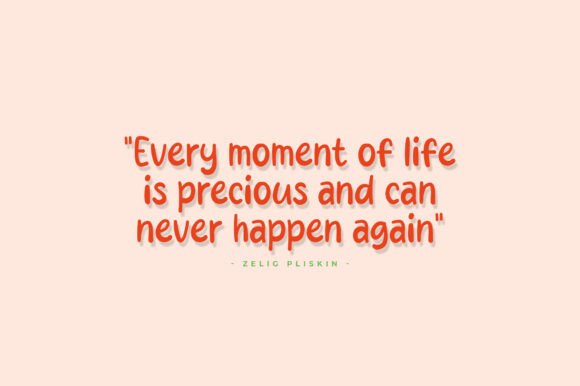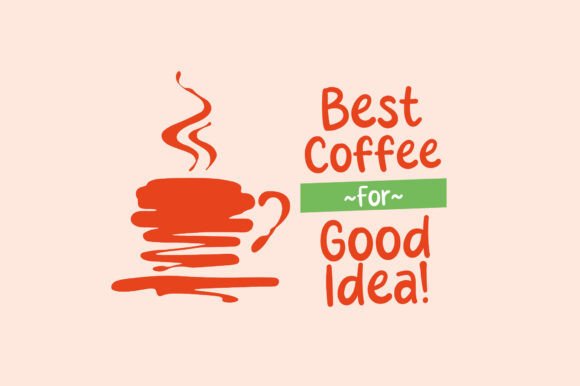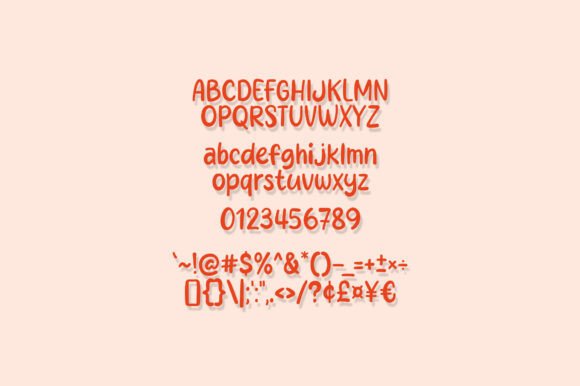
Introducing Happy Selfie Font: The Perfect Addition to Your Design Arsenal
Are you tired of using the same old fonts for your designs? Look no further! Happy Selfie Font is here to revolutionize your creative projects with its modern and cute handwritten style. This versatile font is perfect for a wide range of applications, from posters and logos to magazines, book covers, and banners. In this article, we’ll dive into the features and benefits of Happy Selfie Font, and explore how it can elevate your designs to the next level.
What is Happy Selfie Font?
Happy Selfie Font is a beautifully crafted handwritten font that exudes a sense of playfulness and charm. Its modern and cute style makes it an ideal choice for designers who want to add a personal touch to their work. The font’s unique characteristics and elegant flow make it perfect for creating eye-catching designs that stand out from the crowd.
Key Features of Happy Selfie Font
- Modern and Cute Handwritten Style: Happy Selfie Font boasts a fresh and contemporary look that’s sure to capture the attention of your audience.
- Versatile and Adaptable: This font is perfect for a wide range of projects, including posters, logos, magazines, book covers, banners, and more.
- Elegant Flow and Unique Characteristics: The font’s smooth flow and distinctive features make it easy to read and visually appealing.
Benefits of Using Happy Selfie Font
So, why choose Happy Selfie Font for your design projects? Here are just a few benefits you can expect:
- Stand Out from the Crowd: With Happy Selfie Font, you can create designs that are truly unique and attention-grabbing.
- Easy to Use and Match: This font is incredibly versatile and can be paired with a wide range of other fonts and design elements.
- Perfect for Creative Projects: Whether you’re a designer, crafter, or DIY enthusiast, Happy Selfie Font is the perfect addition to your creative arsenal.
How to Use Happy Selfie Font
- Create Eye-Catching Posters: Use Happy Selfie Font to create bold and colorful posters that grab attention.
- Design Unique Logos: This font is perfect for creating custom logos that reflect your brand’s personality.
- Add a Personal Touch to Your Magazines and Book Covers: Happy Selfie Font is a great choice for adding a touch of elegance and sophistication to your publications.
Tips and Tricks for Working with Happy Selfie Font
Here are a few tips and tricks to help you get the most out of Happy Selfie Font:
- Experiment with Different Colors and Textures: Don’t be afraid to try out different colors and textures to add depth and interest to your designs.
- Pair it with Other Fonts: Happy Selfie Font pairs well with a wide range of other fonts, so don’t be afraid to experiment and find the perfect combination.
- Use it in Combination with Images and Graphics: This font looks great when paired with images and graphics, so try incorporating them into your designs for added visual interest.
In conclusion, Happy Selfie Font is a versatile and charming handwritten font that’s perfect for designers and crafters looking to add a personal touch to their work. With its modern and cute style, elegant flow, and unique characteristics, this font is sure to elevate your designs to the next level. So why wait? Download Happy Selfie Font today and start creating stunning designs that stand out from the crowd!